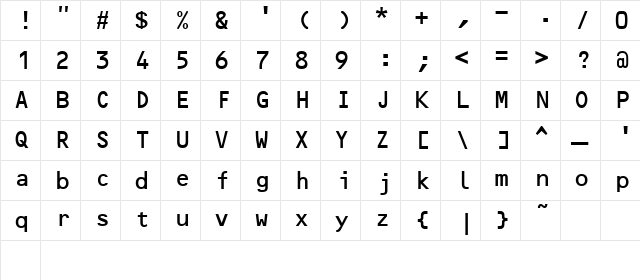
OCR B MT Regular
| Foundry | Monotype Typography |
Design Context for OCR B MT Typeface
OCR B MT offers clean, dependable letterforms without strong stylistic allegiance, making it a practical choice for designers who need flexibility.